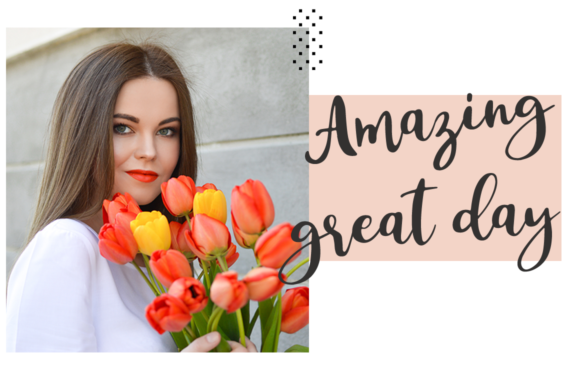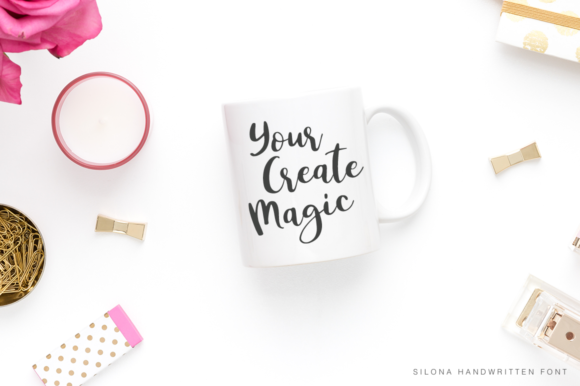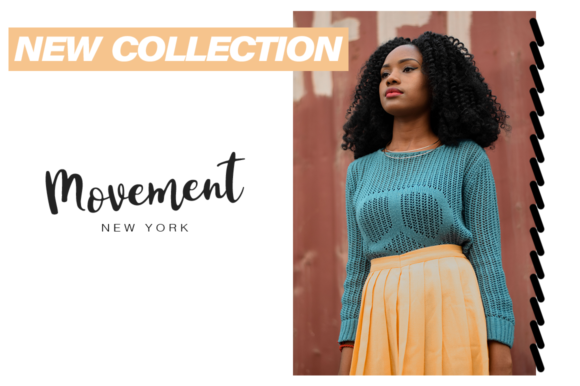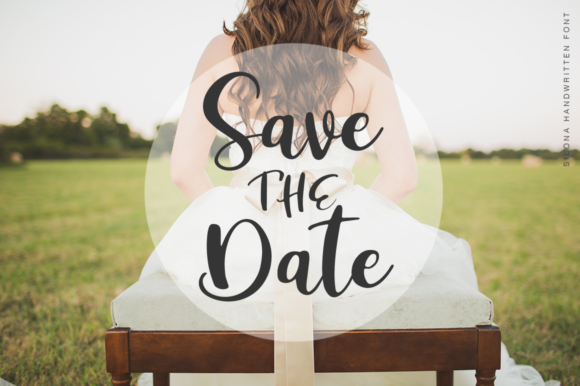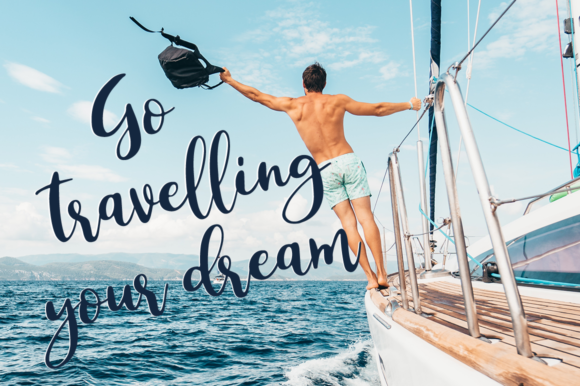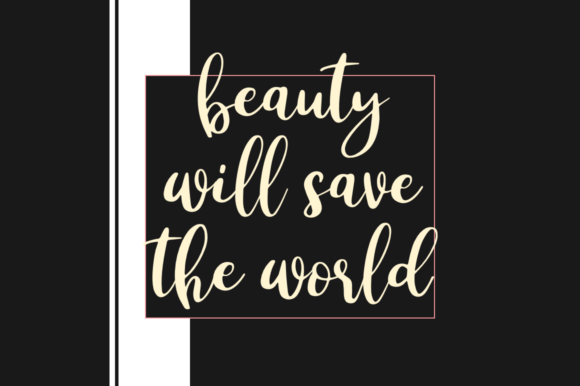
Introduction to Silona Font
Have you ever stared at a blank page, pencil in hand, waiting for inspiration to strike? For many designers, this moment is a familiar one. As you ponder the perfect font to bring your creative project to life, the search for the perfect match can be a daunting task. That’s where Silona Font comes in – a stunning script font designed to elevate your designs and leave a lasting impression.
Whether you’re crafting a beautiful wedding invitation or designing a logo for a client, Silona Font is a valuable resource that can take your work to the next level. With its high-quality design and transparent background, this free download is a must-have for any designer looking to add a touch of elegance to their projects.
As a versatile design resource, Silona Font is perfect for branding, decorating, and so much more. Its unique style and versatility make it an ideal choice for designers looking to add a personal touch to their work.
Key Features of Silona Font
- Designed with a unique aesthetic, Silona Font is perfect for adding a touch of elegance and sophistication to any design project.
Honest Review: Silona Font
I recently had the chance to work with the Silona Font, and I must say, it’s been a game-changer for my creative projects. With its high quality design and transparent background, this font is perfect for designers looking for a clean and versatile font.
- ✨ Versatile: Silona Font can be used for a wide range of creative projects, from web design to print materials.
- ✨ High-quality design: The font’s sleek and modern design makes it perfect for designers who want to add a touch of sophistication to their projects.
- ⚠️ Limited language support: The font may not support all languages, which could be a problem for designers working on international projects.
- ⚠️ Not suitable for all design styles: While Silona Font is perfect for modern and minimalist designs, it may not be the best choice for designers who prefer a more traditional or ornate style.
Overall, I’m really impressed with the Silona Font. It’s a high-quality design resource that’s perfect for designers looking for a clean and versatile font. I highly recommend it for any creative project that requires a modern and sophisticated look.
How to Use Silona Font
Tips for Getting the Most Out of Silona Font
For best results, use Silona Font in conjunction with other high-quality design resources. Experiment with different font sizes and styles to create visually appealing text elements.
Common Use Cases for Silona Font
Silona Font is ideal for use in a variety of creative projects, including logos, business cards, and social media graphics. Its transparent background makes it perfect for use on images and graphics, while its high-quality design makes it suitable for use in a range of industries.
Alternatives to Silona Font
Great Vibes Font is a high-quality, elegant script font perfect for creative projects requiring a sophisticated and refined look. It’s ideal for use on invitations, wedding designs, and other high-end design materials. Great Vibes Font is available for free download and offers a transparent background, making it easy to layer with other design elements. It compares well to Silona Font in terms of its fluid, cursive design, but has a more refined and mature aesthetic.